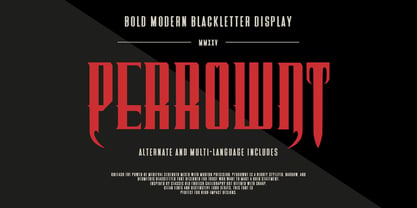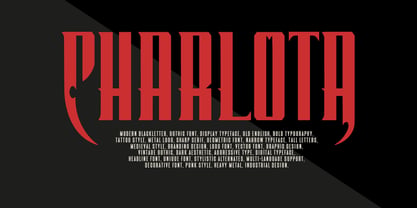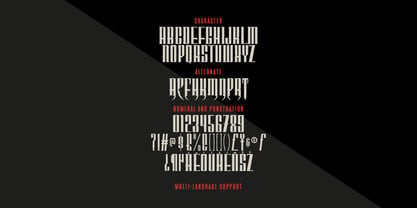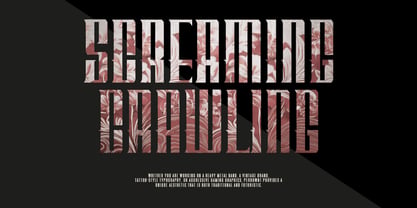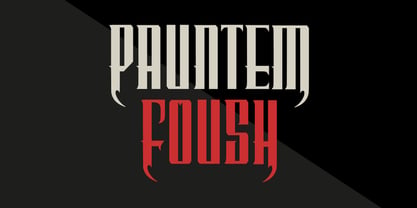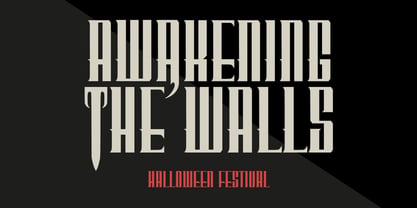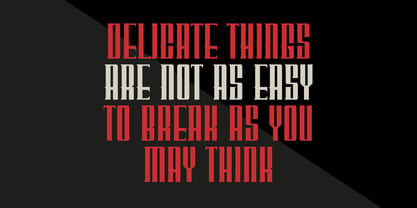
MC Perrownt
von Maulana Creative
Die Schriftfamilie MC Perrownt wurde von Gilang Maulana entworfen und von Maulana Creative veröffentlicht. MC Perrownt enthält 1 Stile. Mehr über diese Familie
Unleash the power of medieval strength mixed with modern precision. Perrownt is a highly stylized, narrow, and geometric blackletter font designed for those who want to make a bold statement. Inspired by classic Old English calligraphy but refined with sharp, clean lines and distinctive long serifs, this font is perfect for high-impact designs. Whether you are working on a heavy metal band logo, a vintage brand, tattoo style typography, or aggressive gaming graphics, Perrownt provides a unique aesthetic that is both traditional and futuristic.
Designer: Gilang Maulana
Foundry: Maulana Creative